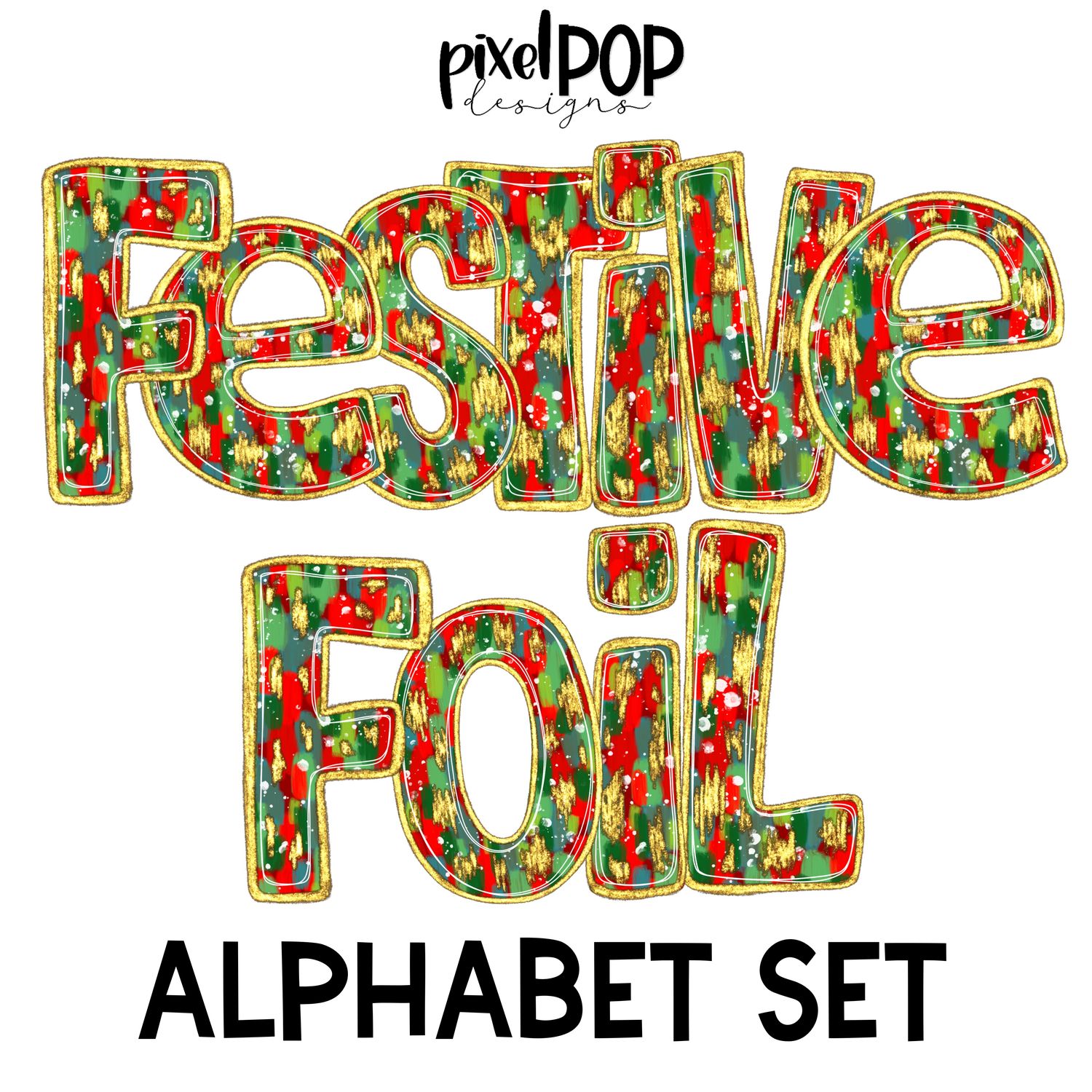
*The second sample image shown in photos uses the alphabet set with an added background behind the letters. This background is not included with this set - it was used to show how you can add extra flair with the set.
(1) Hand drawn alphabet set (letters A through Z with additional lowercase a, e, and i) in festive foil print